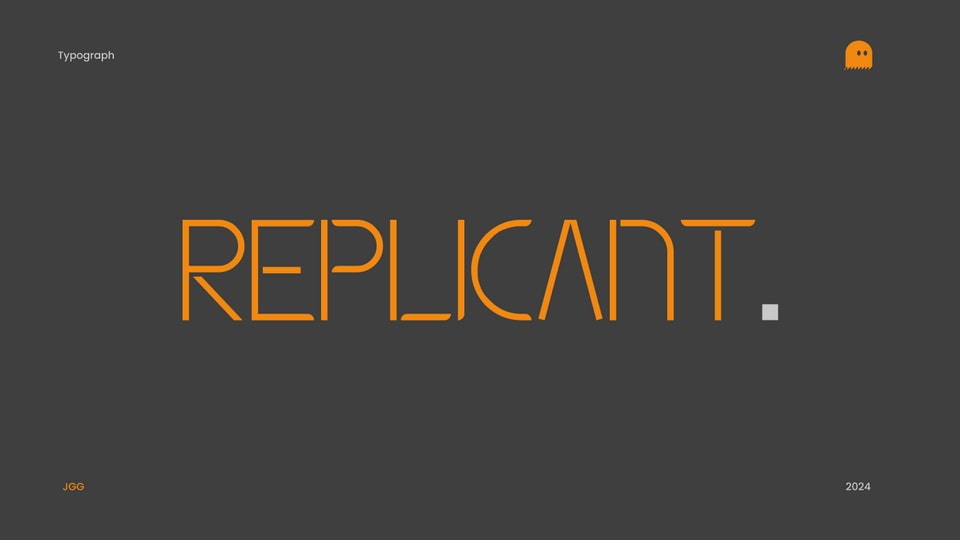
Download Replicant font, a sleek, modern geometric typeface that pairs minimalist design with delicate stencil strokes that feels contemporary and refined.
Designer: João G. Gonçalves